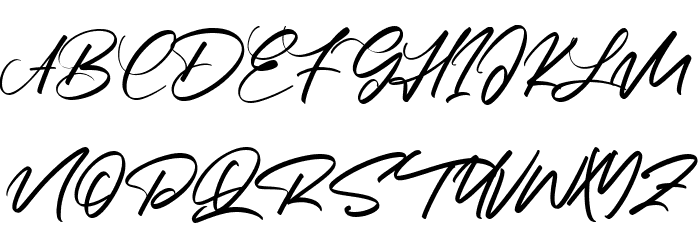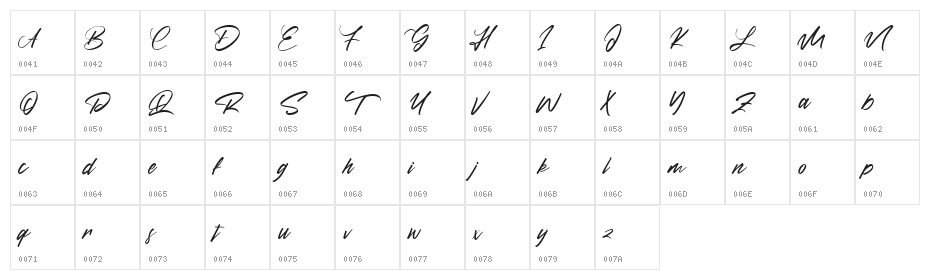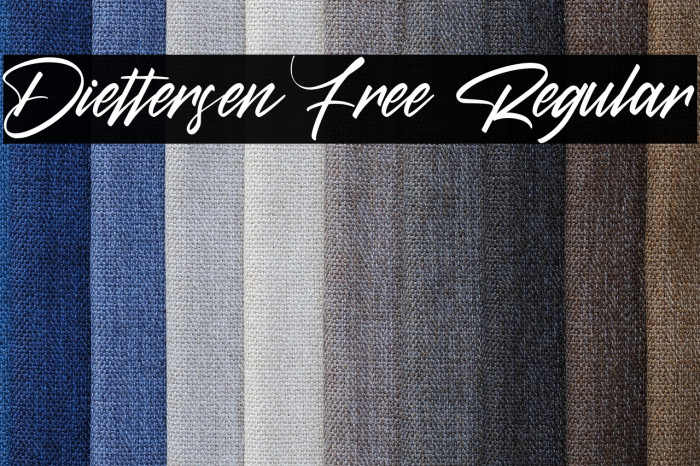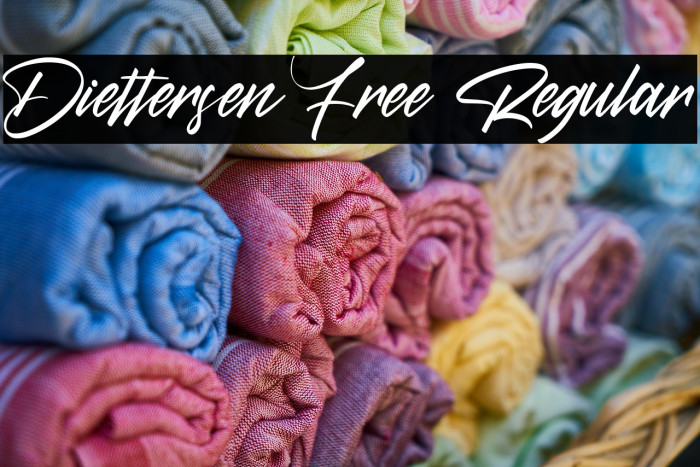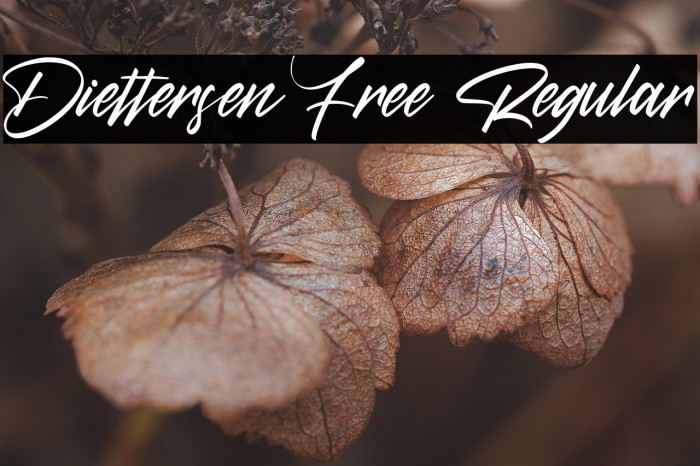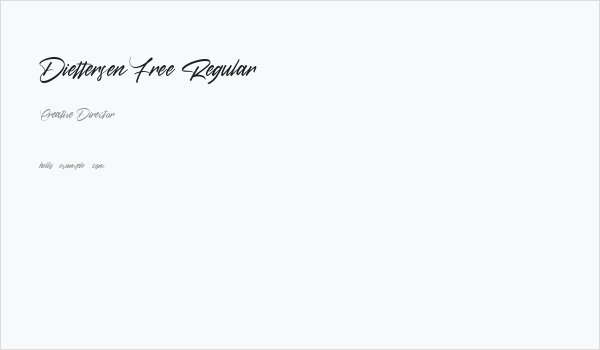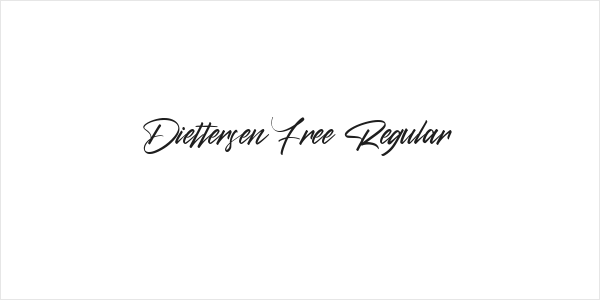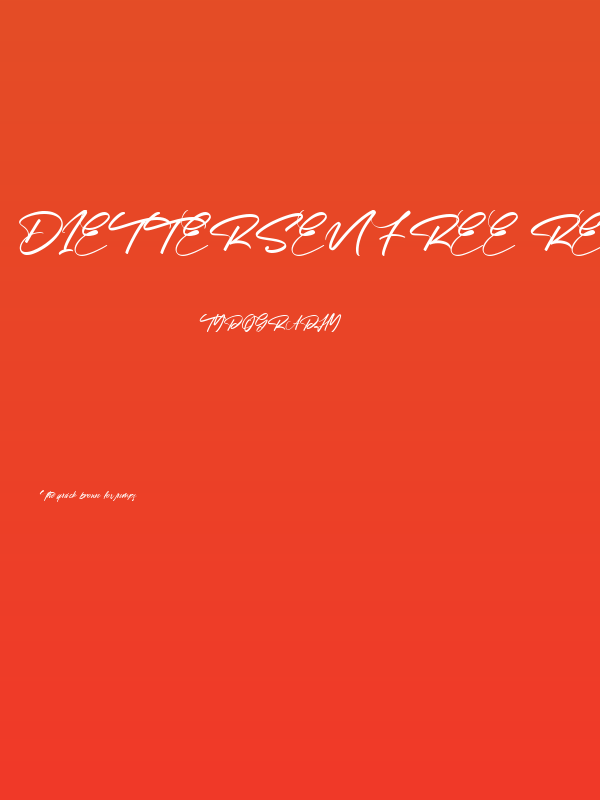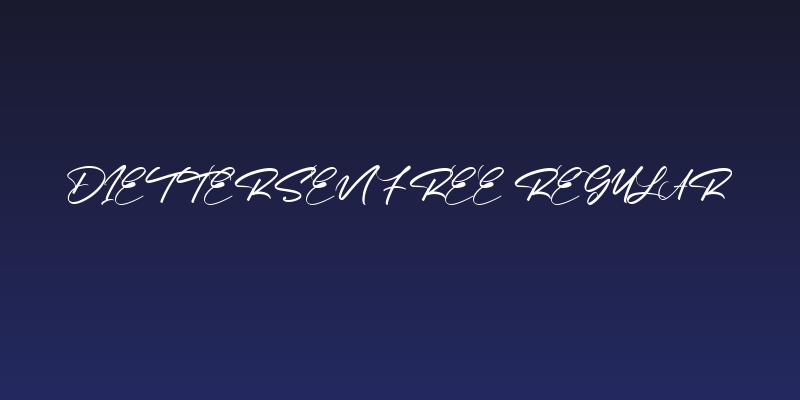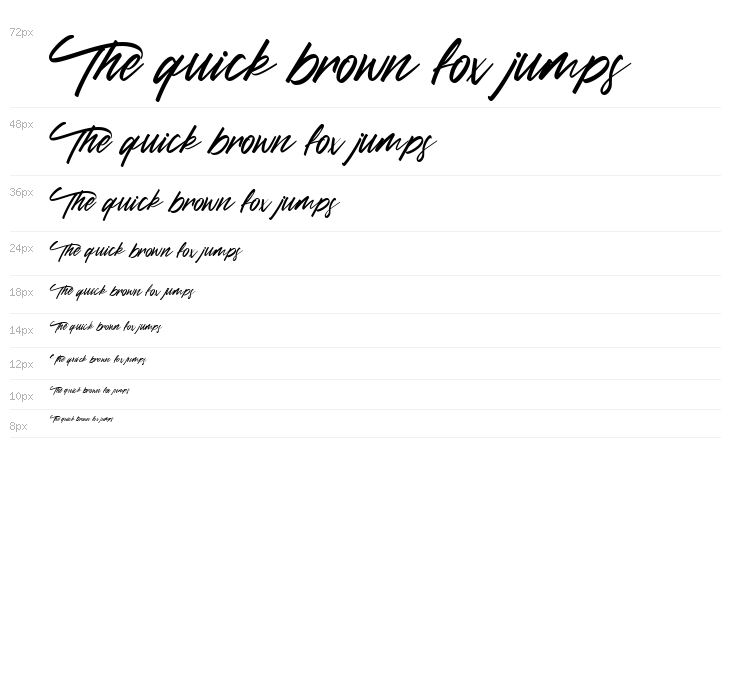
Diettersen Free Regular Font
This font exudes a dynamic and elegant script style, characterized by its fluid, cursive strokes that mimic natural handwriting. The letters are interconnected, creating a seamless flow that enhances its sophisticated appearance. The uppercase letters are bold and prominent, while the lowercase letters maintain a consistent rhythm and balance. The font's design is both artistic and legible, making it suitable for a variety of creative applications. Its unique flair is evident in the distinctive loops and swirls, which add a touch of personality and charm. The overall aesthetic is modern yet timeless, appealing to those who appreciate a blend of tradition and contemporary style.
| Proposed Projects | Ideal for wedding invitations, branding, greeting cards, and elegant signage. |